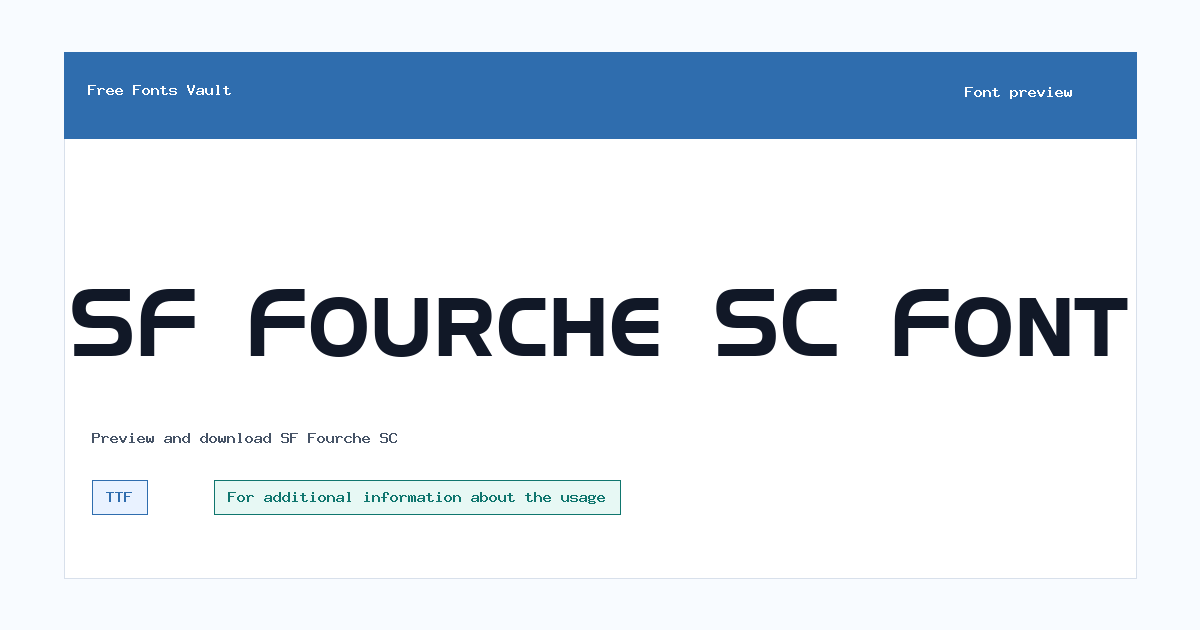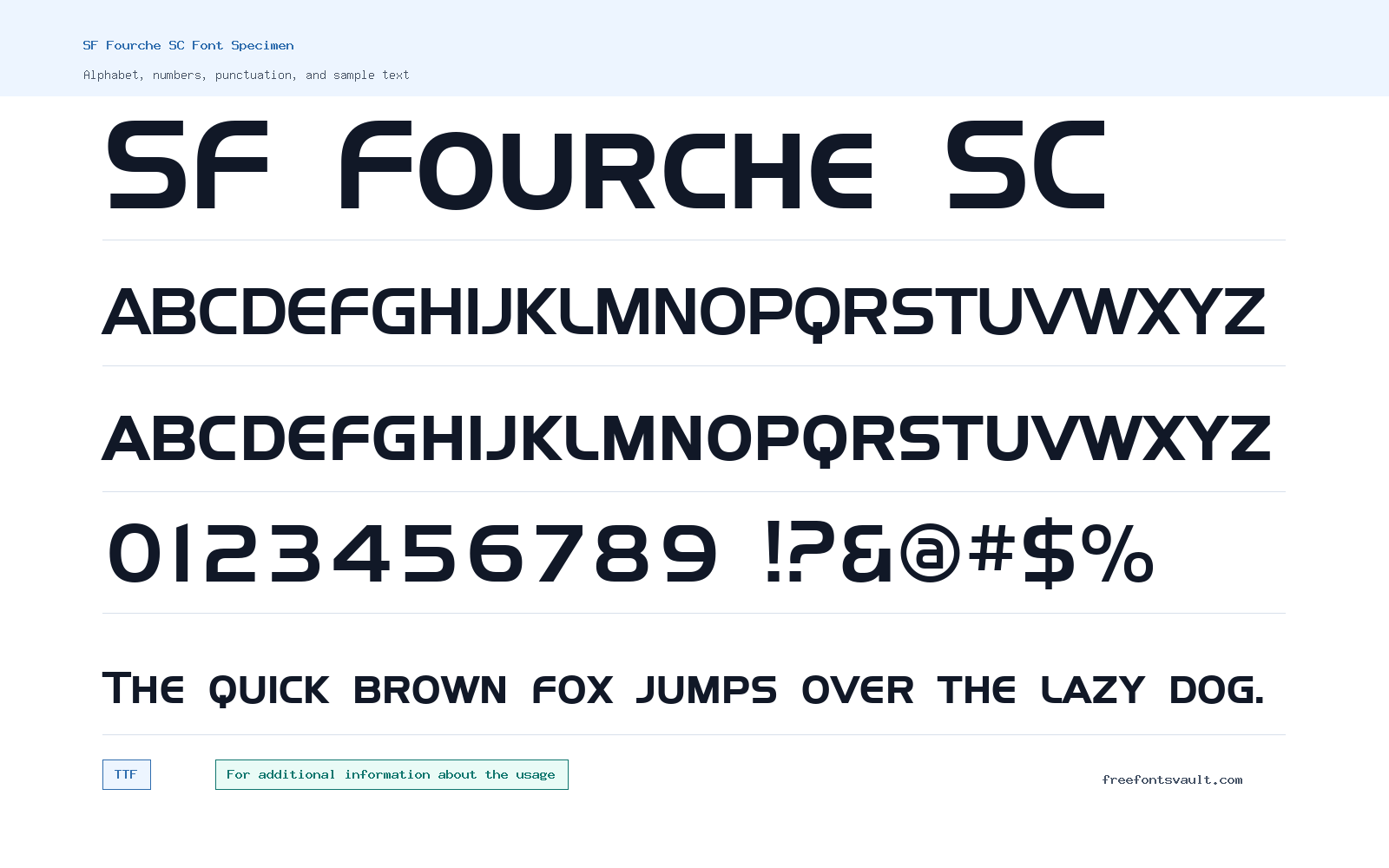
SF Fourche SC
- Designer Derek Vogelpohl
- Foundry ShyFoundry
SF Fourche SC is a display-style TTF font from ShyFoundry, credited to Derek Vogelpohl. It is best approached as a characterful font for short text, previews, and design tests rather than long body copy.
SF Fourche SC has a strong, decorative feel that suits titles, labels, and compact display settings. Because the available file is a regular TrueType font, visitors can install it easily on most desktop systems and test it in common design apps that support TTF files.
SF Fourche SC is a compact display style that should be tested with real wording before use. The SC name suggests a small-cap or compact title use, so it can suit labels, badges, short headings, and stylized interface accents. Keep the design simple around it so the letter shapes remain the focus.
- Display-friendly style suited to short words, titles, and preview testing
- Headlines, labels, badges, and short decorative text
SF Fourche SC is credited to Derek Vogelpohl and ShyFoundry.
SF Fourche SC is supplied as a TrueType font in a regular style. Its stronger display character makes it more useful for short text than for long reading sections.
Who designed SF Fourche SC?
The font is credited to Derek Vogelpohl, with ShyFoundry listed as the foundry.